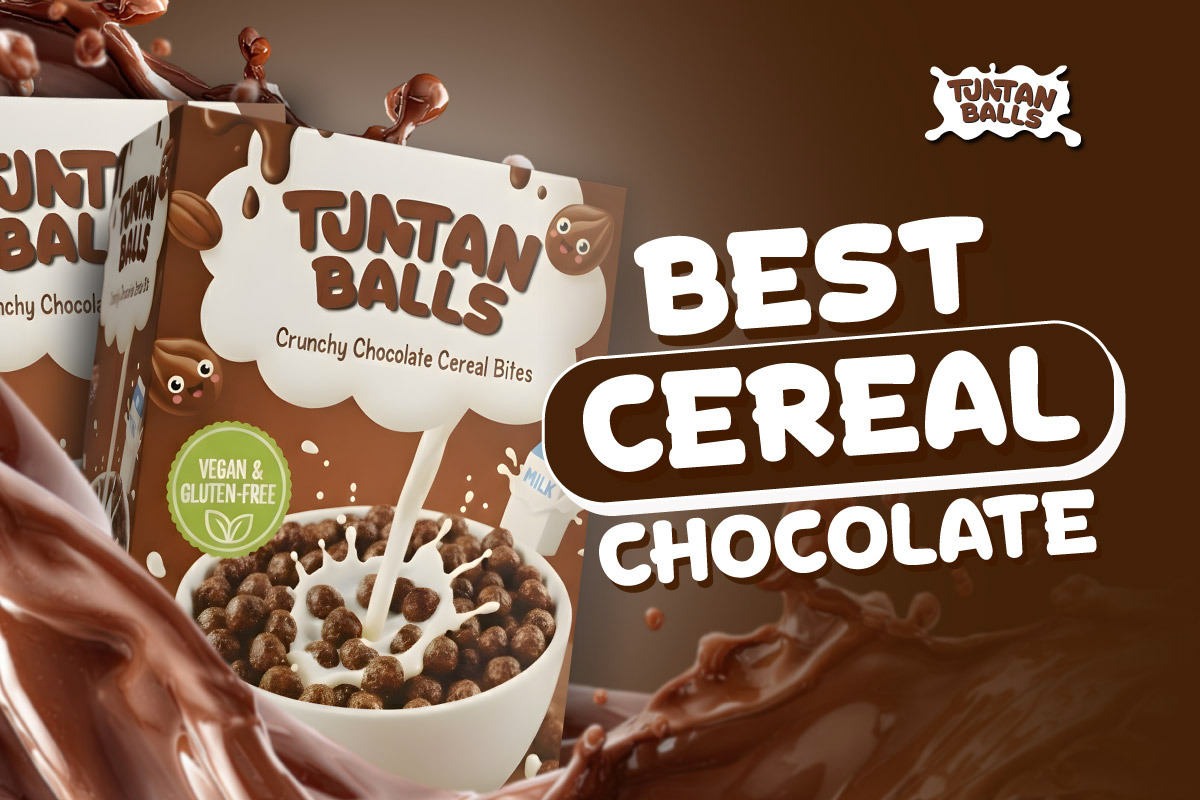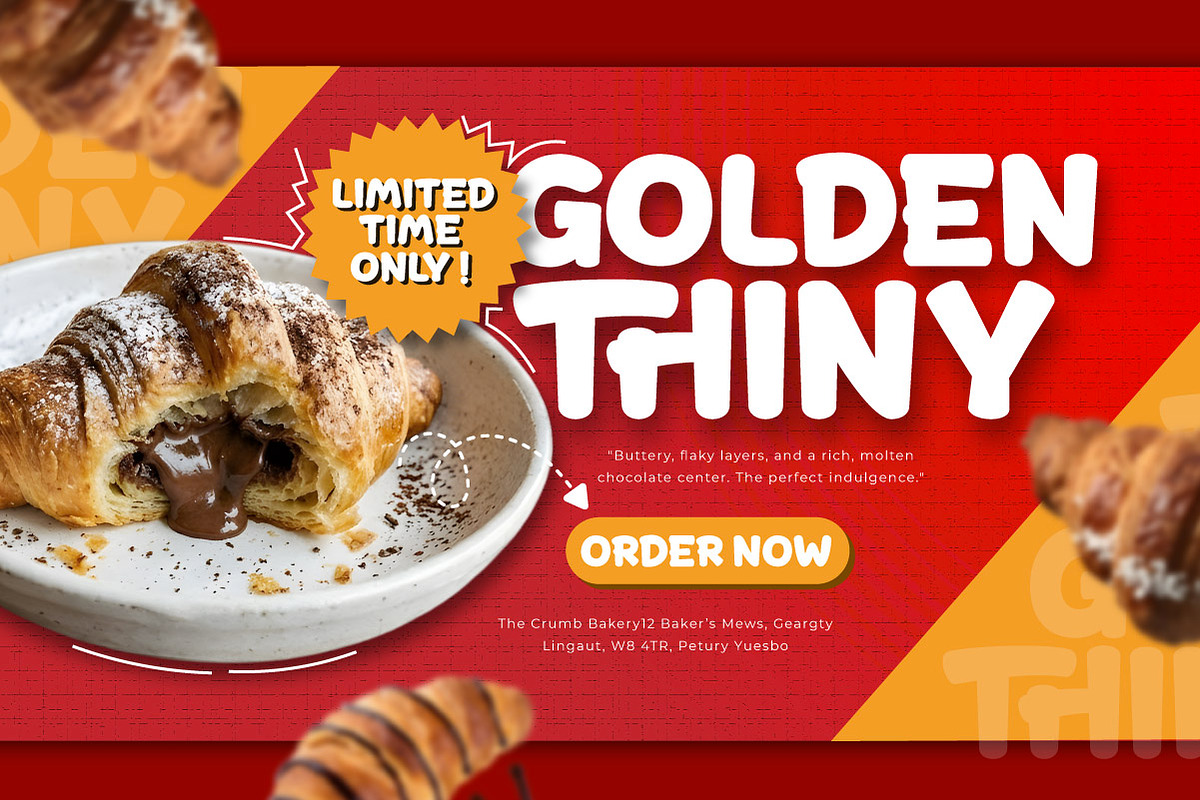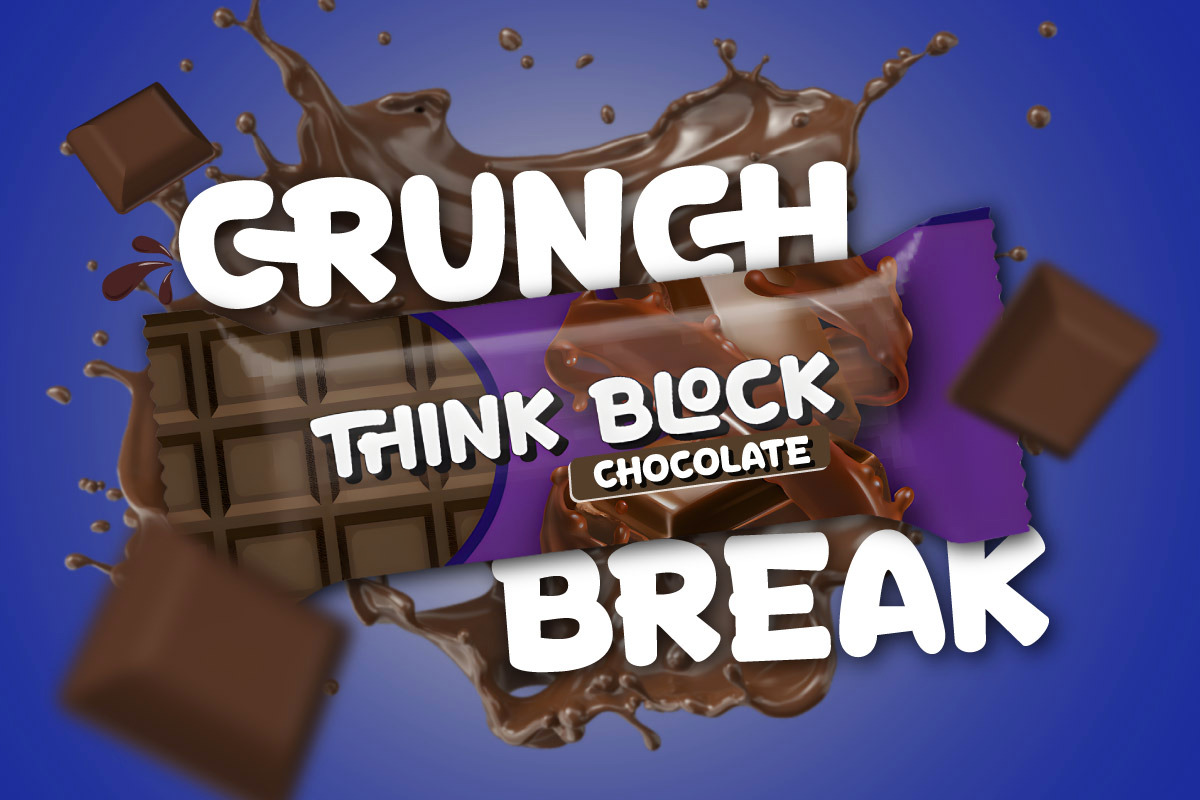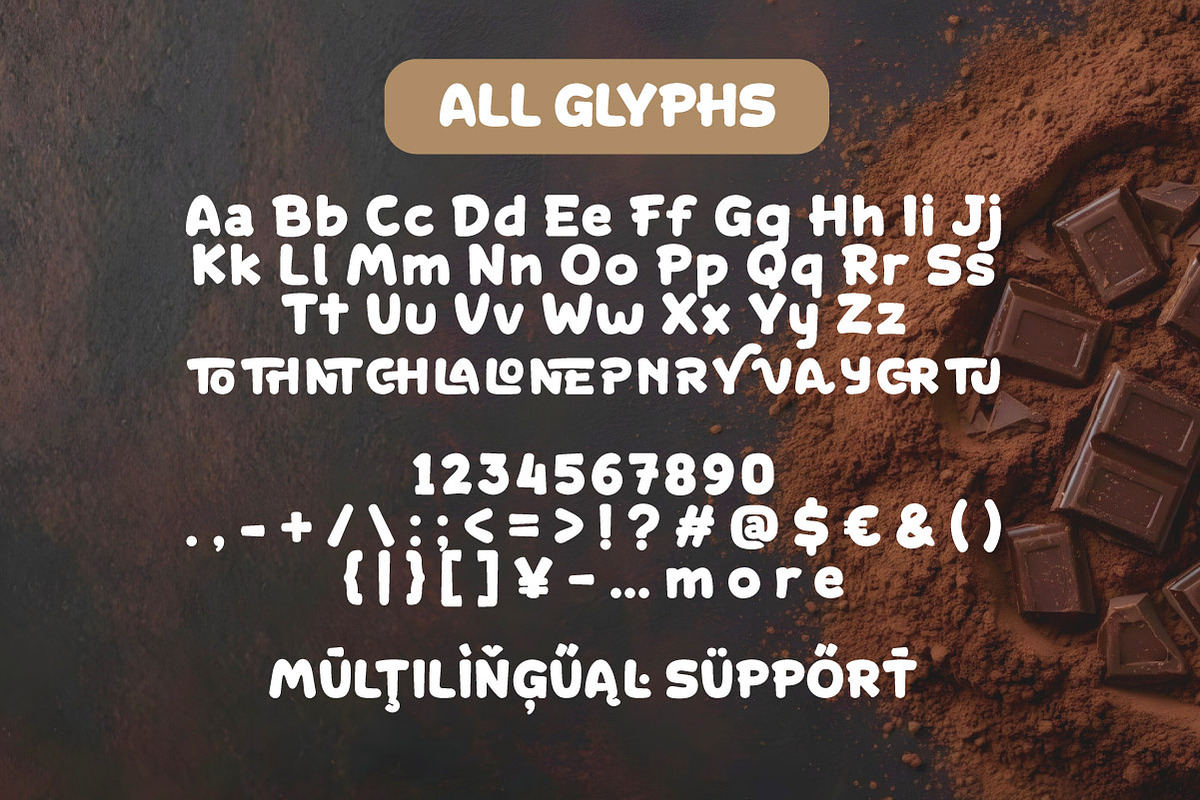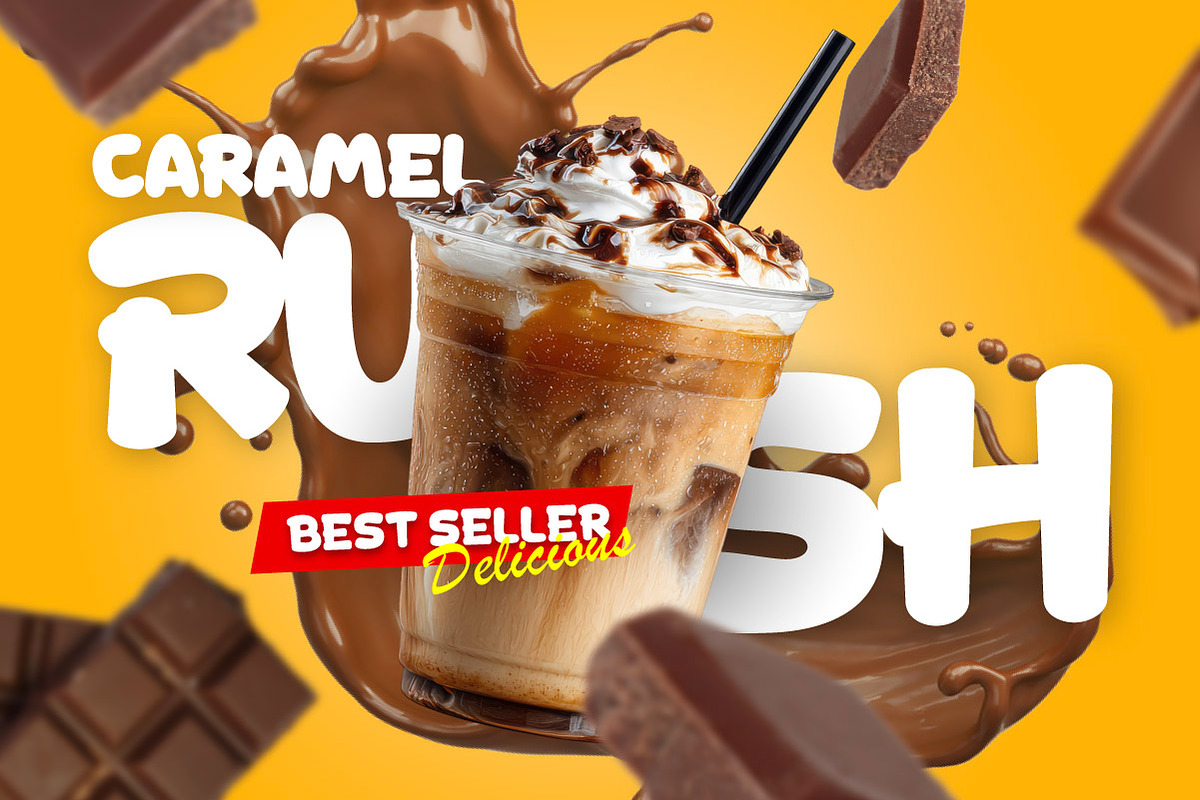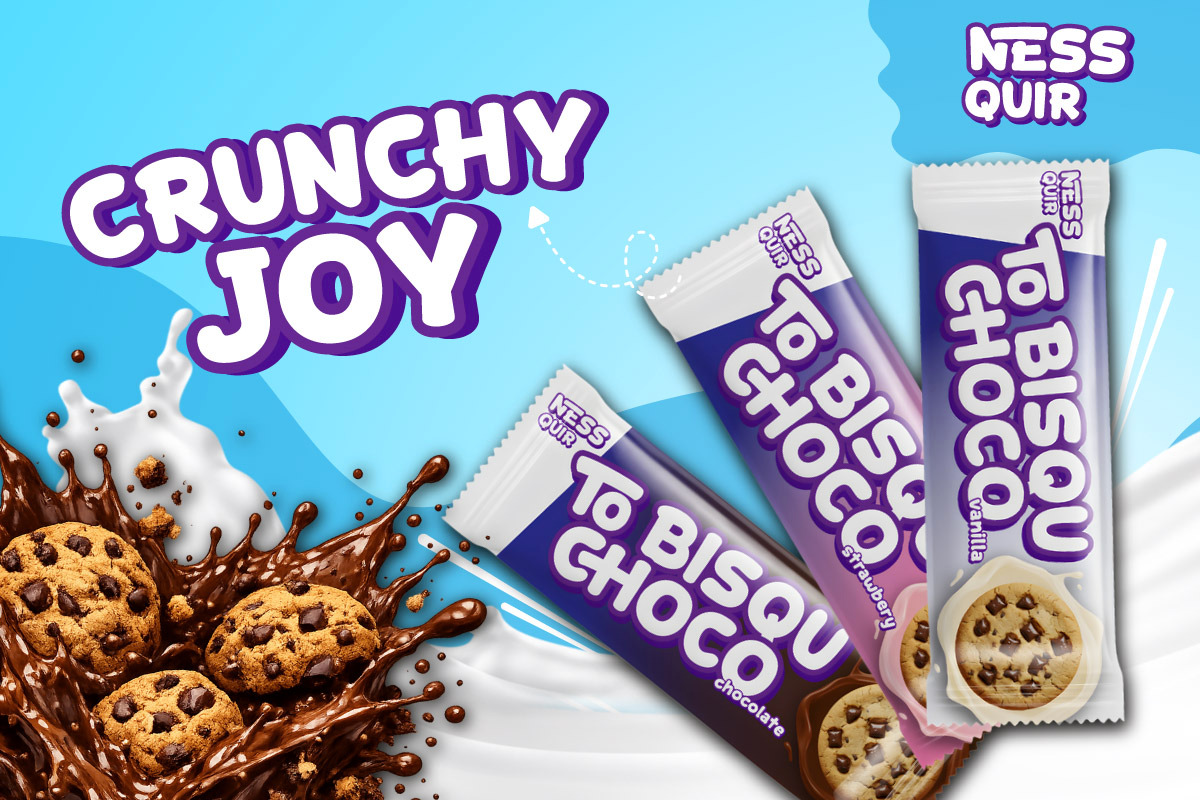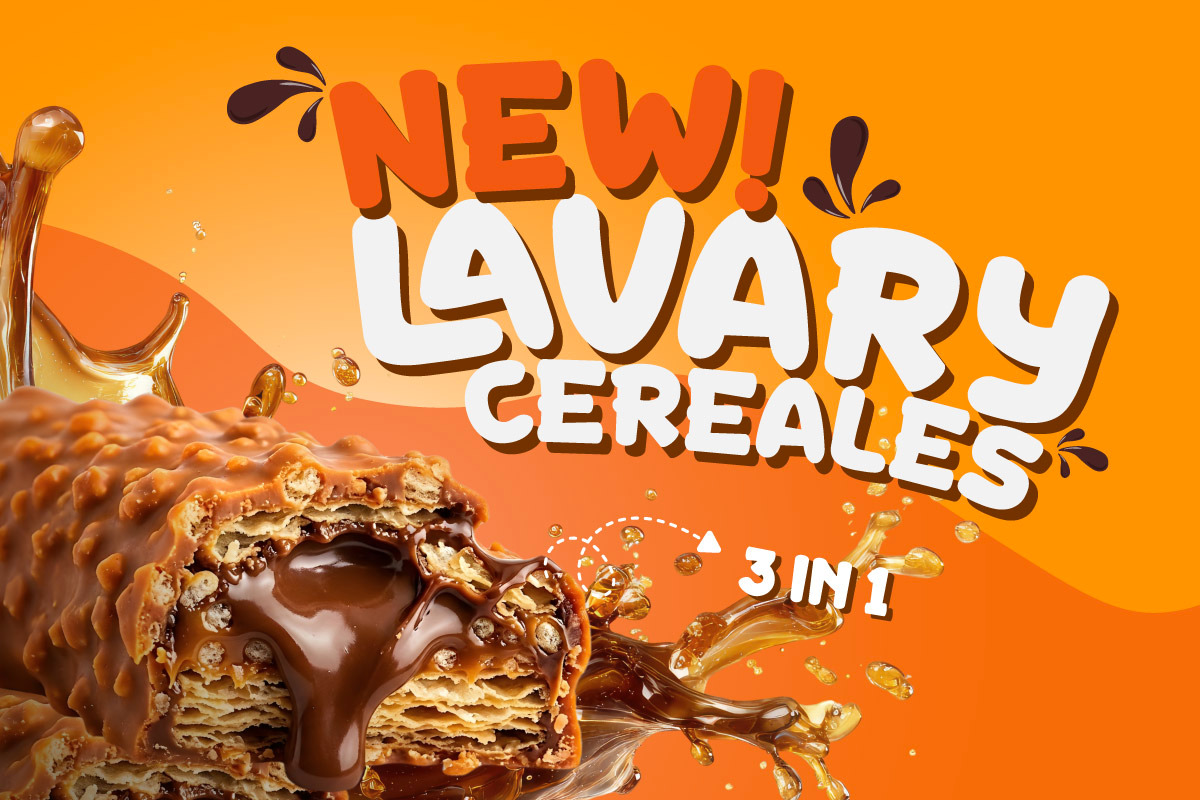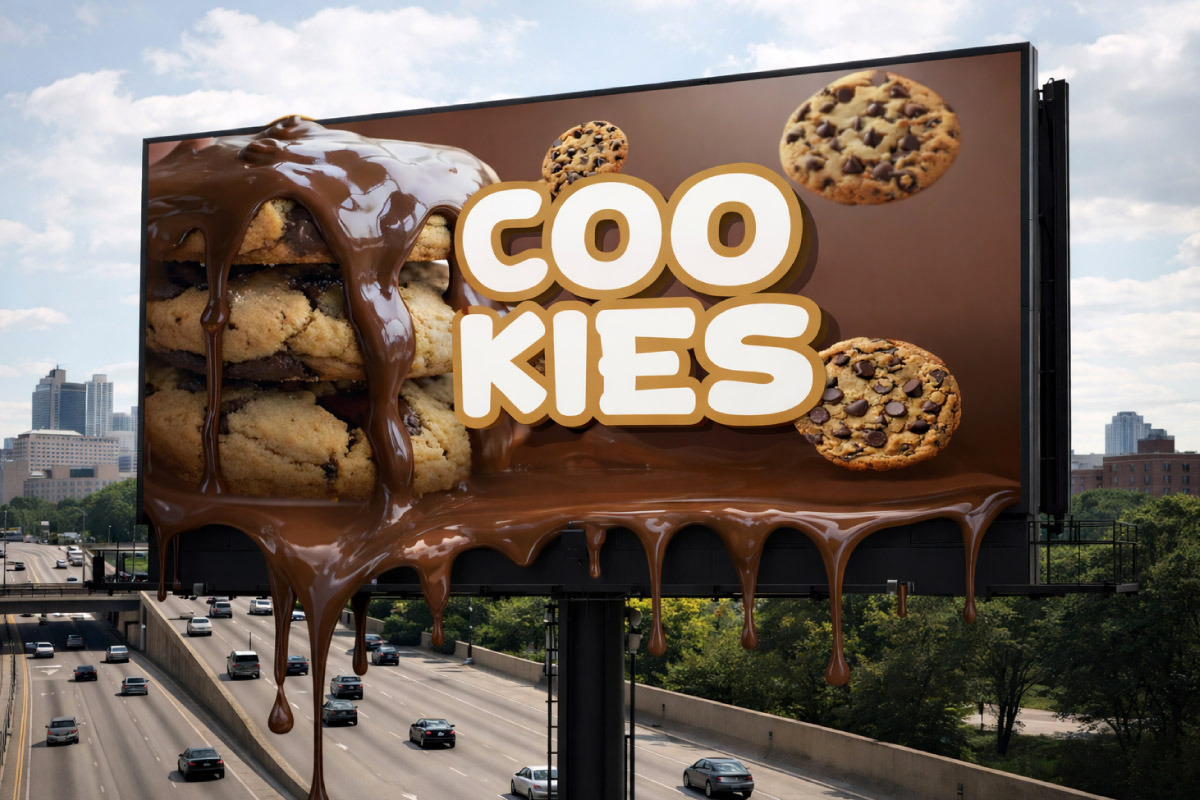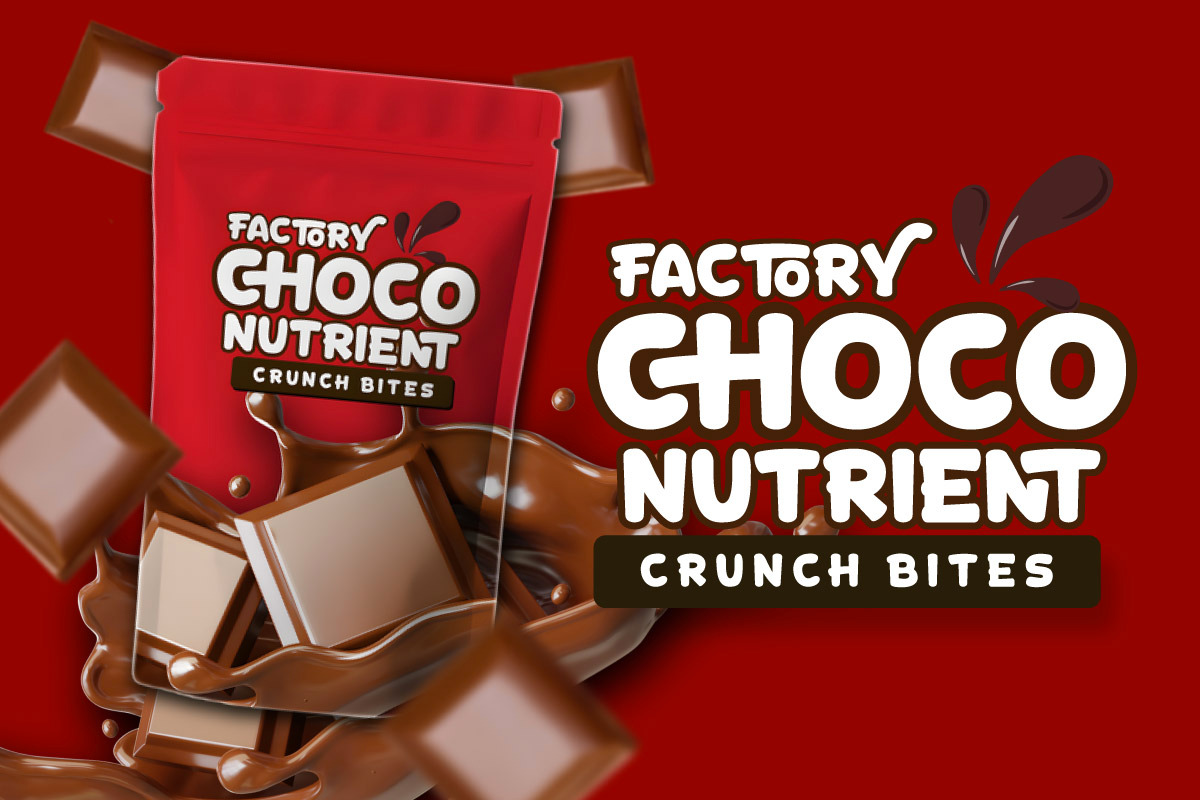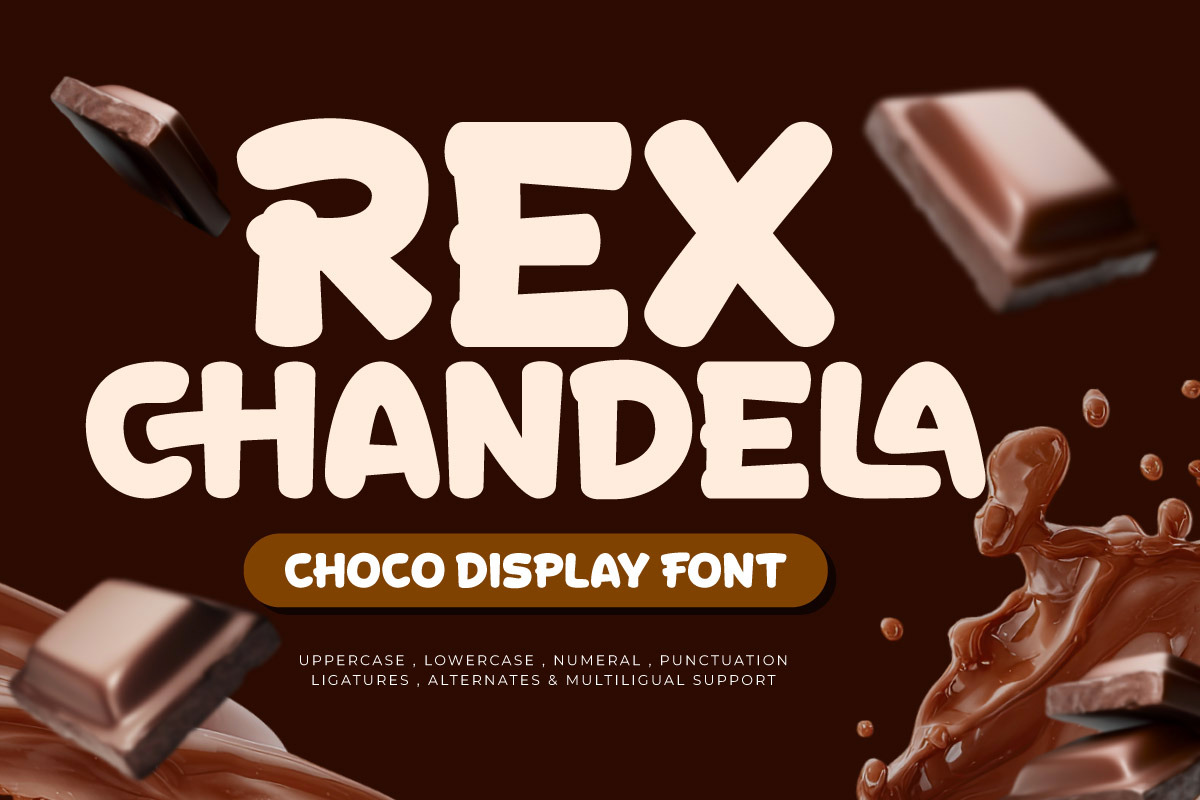
Rex Chandela - Choco Display Font
Rex Chandela is a Choco Display Font typeface designed to strengthen visual identities within the F&B (Food & Beverage) industry. Featuring bold and rounded letterforms, this font delivers a functional impression for branding needs in the Snack & Confectionery sector. Its soft characteristics provide a friendly and modern vibe to any sweet treat product packaging.
The font design prioritizes high readability with solid letter proportions, making it an ideal asset for Chocolate Bar packaging designs and other product labels. Its shapes, which resemble the texture of sweet treats, are highly relevant for casual yet visually professional Daily Break-time Snack themes. The structure of each character helps create a clear information hierarchy in dense design layouts.
As a culinary typography solution, Rex Chandela is highly effective for bakery logos, promotional posters, and social media content. Its ability to capture audience attention makes it the right choice for designers seeking a consistent Appetizing Font aesthetic. This font is ready to enhance product appeal in the market through a characterful and memorable visual presentation for consumers.
- Multilingual Support: Fully supports 85+ languages, including: Afrikaans, Albanian, Asu, Basque, Bemba, Bena, Breton, Catalan, Chiga, Cornish, Croatian, Czech, Danish, Dutch, Embu, English, Esperanto, Estonian, Filipino, Finnish, French, Friulian, Galician, Gusii, Hungarian, Indonesian, Irish, Italian, Kabuverdianu, Kalenjin, Kamba, Kikuyu, Kinyarwanda, Latvian, Lithuanian, Lower Sorbian, Luo, Luxembourgish, Luyia, Machame, Makhuwa-Meetto, Makonde, Malagasy, Maltese, Manx, Meru, Morisyen, North Ndebele, Norwegian Bokmål, Norwegian Nynorsk, Nyankole, Oromo, Polish, Portuguese, Quechua, Romanian, Romansh, Rombo, Rundi, Rwa, Samburu, Sango, Sangu, Scottish Gaelic, Sena, Serbian, Shambala, Shona, Slovak, Slovenian, Soga, Somali, Spanish, Swahili, Swedish, Swiss German, Taita, Teso, Turkish, Upper Sorbian, Uzbek (Latin), Volapük, Vunjo, Walser, Zulu.